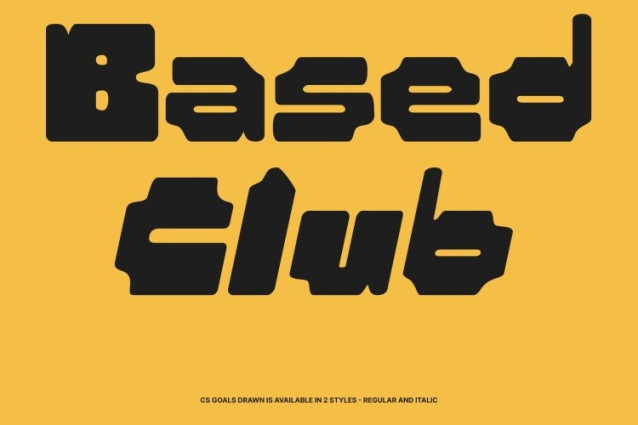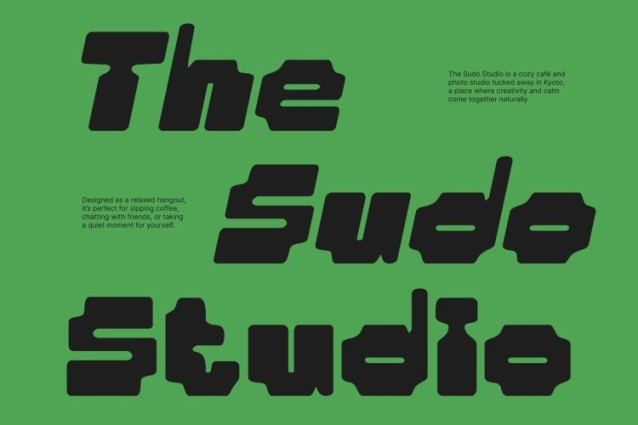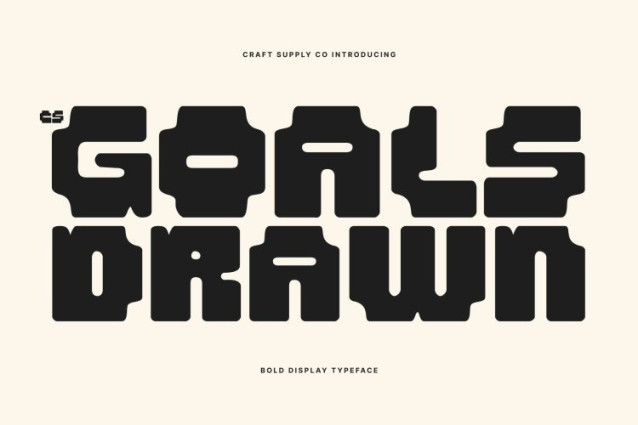
CS Goals Drawn Font This is a bold pixel display font that captures the vibrant energy of retro digital culture. Inspired by 8-bit video games and early computer graphics, it combines a monospaced, boxy structure with playful proportions that make each letterform feel lively and expressive. The typeface merges the nostalgia of classic pixel fonts with a fresh, contemporary twist, creating a fun and eye-catching style perfect for modern creative projects.
Playful Proportions and Monospaced Style
Each glyph in follows a pixel grid, giving the font a consistent, structured base while the playful shapes break the rigidity. This balance allows the font to feel both organized and dynamic, adding charm and personality to headlines, posters, and digital designs. The drawn effect enhances the handcrafted feel, giving it texture and uniqueness without compromising readability.
Designed for Bold, Youthful, and Game-Inspired Designs
Ideal for gaming visuals, music posters, merchandise, and youth-centric branding, injects energy and retro fun into every project. Its pixelated, funky aesthetic evokes the nostalgia of the ’90s while remaining modern and striking, making it perfect for designs that demand attention.
Versatile for Creative Retro Themes
From playful tech branding to video game interfaces and nostalgic posters, adapts effortlessly to retro-inspired creative projects. Its combination of structure, funk, and hand-drawn character ensures every design feels bold, expressive, and full of personality.